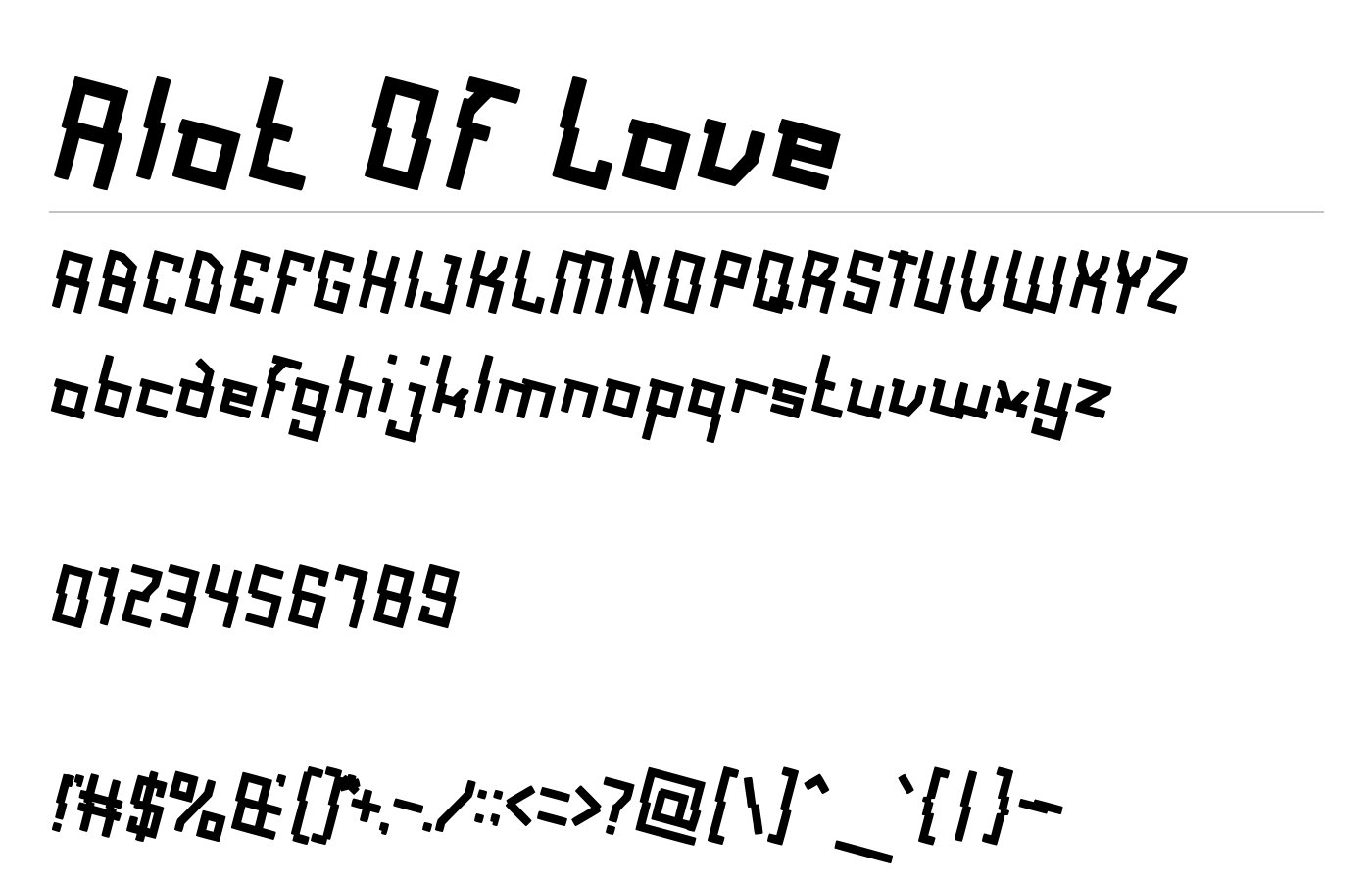
Alot Of Love is a bold, condensed sans serif font with a playful, slightly quirky character. Its angular and irregular letterforms give it a modern, edgy feel while maintaining good readability, making it great for attention-grabbing headlines and creative branding. This font works well in projects that want to convey a sense of uniqueness and contemporary style with a touch of fun.
Alot Of Love Font
About Alot Of Love Font